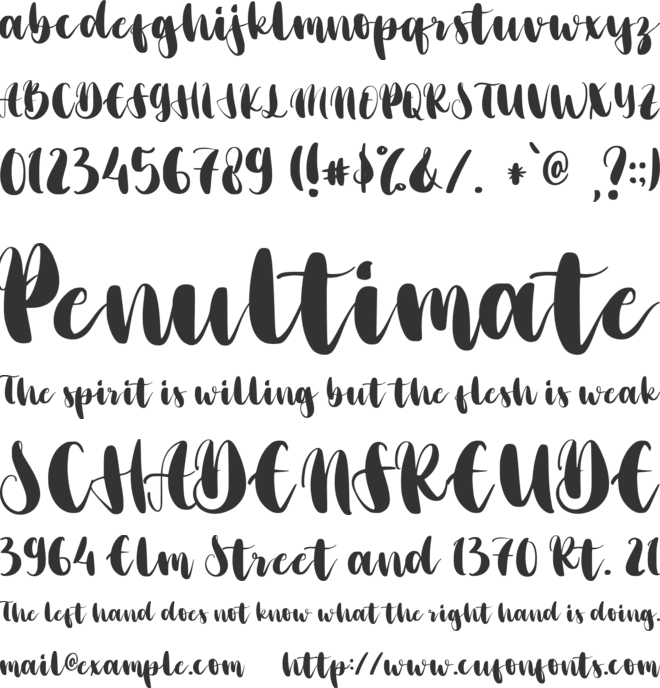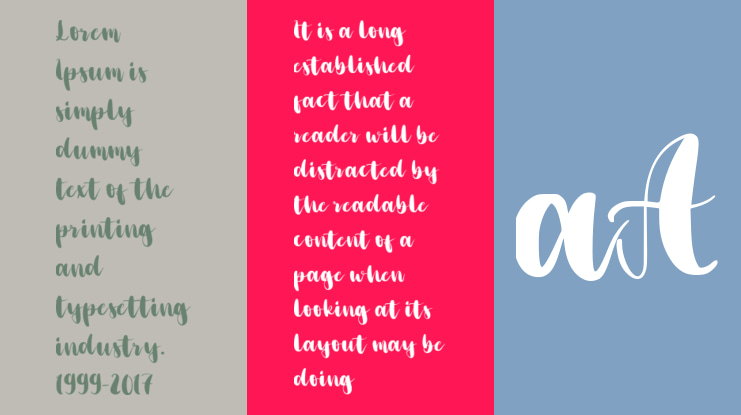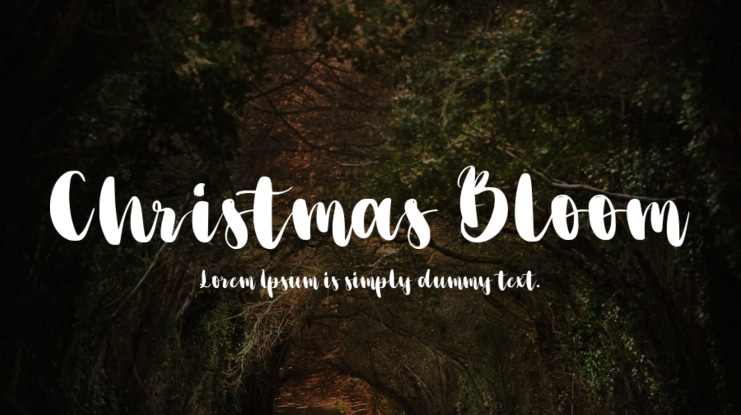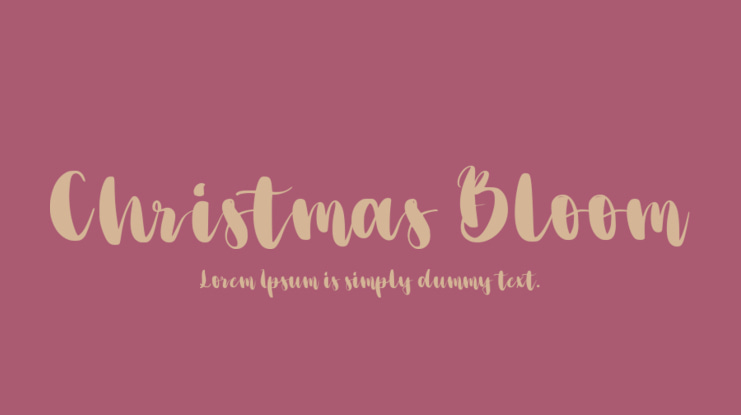
Christmas Bloom Font
Introducing Christmas Bloom, a versatile and whimsically charming font that marries the merriment of Christmas with the joy of the New Year. While its name nods toward the holiday season, its attractive and adaptable nature allows it to span various themes. Woven with a unique, adorable, and organic essence, Christmas Bloom exudes a feel-good vibe that captures the viewer’s attention. Enhanced with ligatures and swashes in lowercase, this feature introduces a pleasing variety to the font. Christmas Bloom aids in simplifying and enriching your design process, providing a perfect touch to all your creative projects.
Christmas Bloom font preview